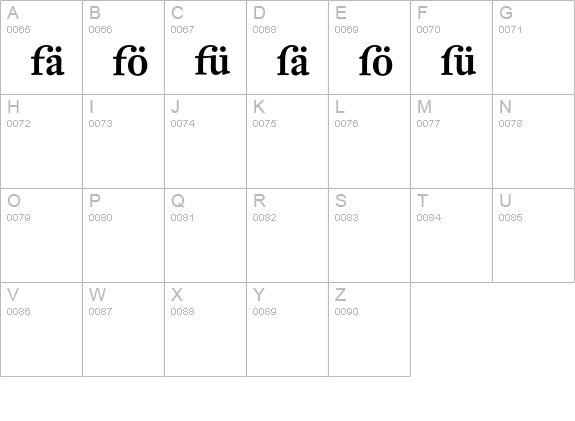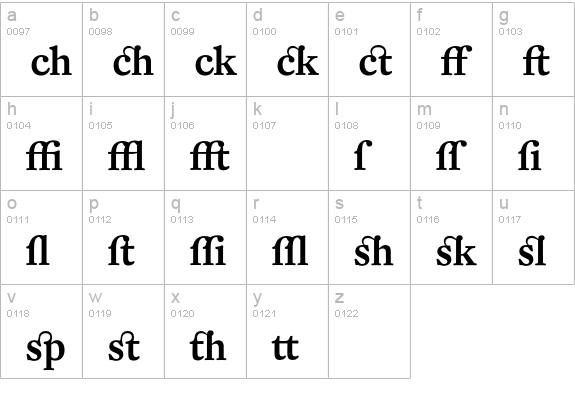
DTL Fleischmann T Medium Alt is a balanced, medium-weight variant in the DTL typeface family \xE2\x80\x94 well suited to sub-headlines, navigation, and balanced editorial work.
The DTL Fleischmann T Medium Alt font is a classic and elegant typeface that exudes sophistication and style. Its timeless design makes it perfect for a wide range of design projects, from branding to editorial design. With its balanced proportions and distinctive letterforms, this font is sure to make a statement in any layout. What sets the DTL Fleischmann T Medium Alt font apart is its versatility - it can be used for both headlines and body text, providing a cohesive and polished look across all your design elements. Whether you're creating a sleek corporate identity or a refined editorial spread, this font will elevate your design to the next level. And the best part? The DTL Fleischmann T Medium Alt font is available for free download at FontsMarket.com, making it accessible to designers of all levels. Don't miss out on the opportunity to add this exquisite font to your collection and take your designs to new heights.